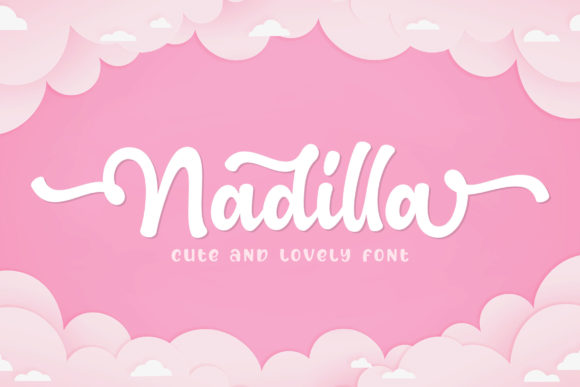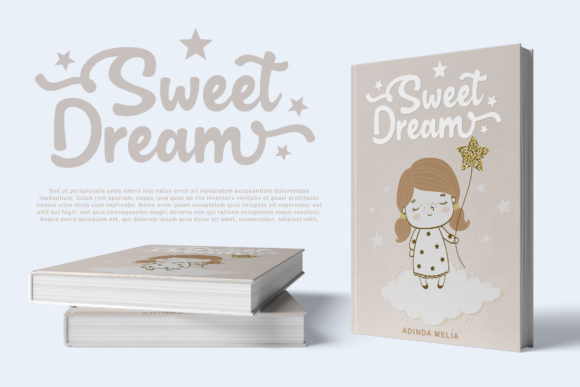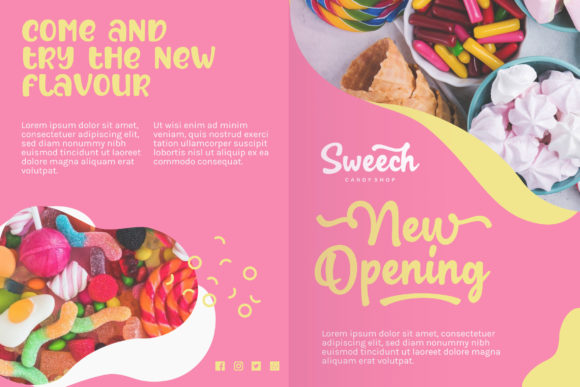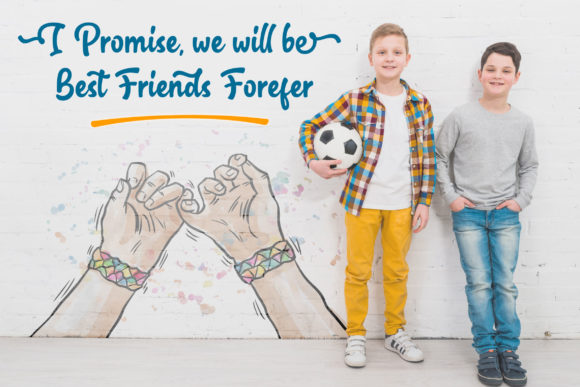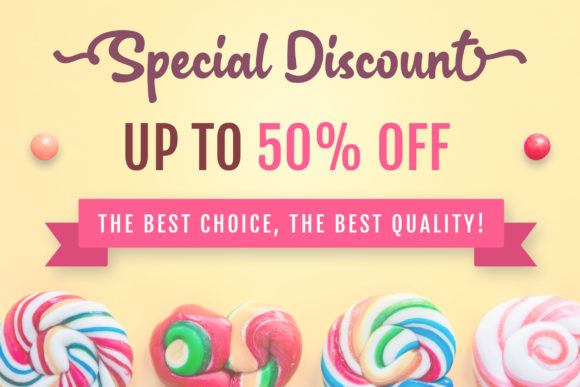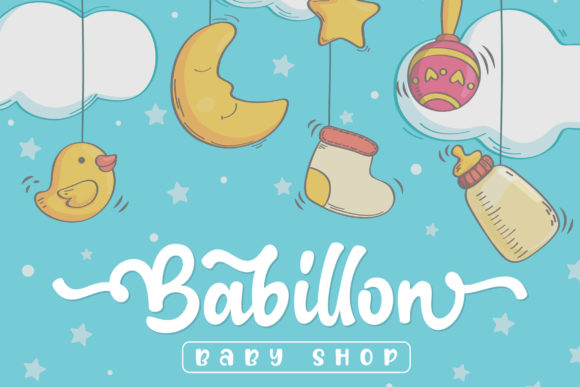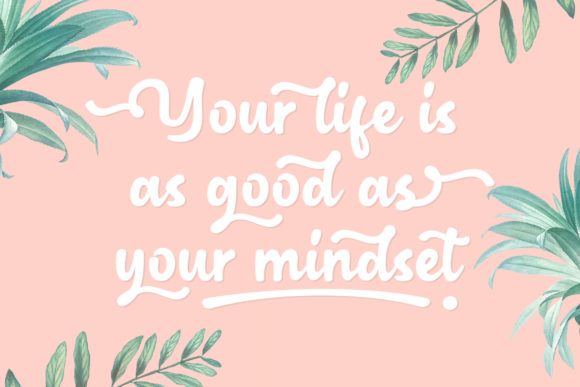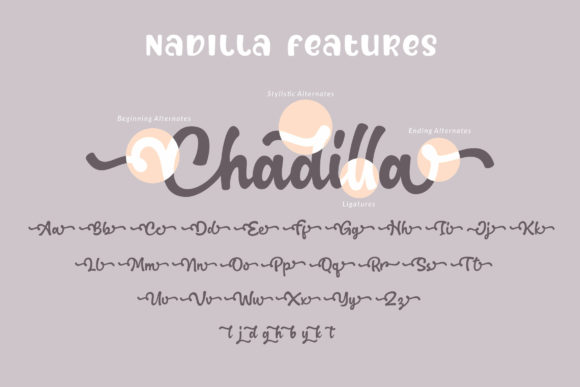
Nadilla Font
About Nadilla Font
Nadilla feels magical and lovely, but also elegant. Get inspired by its imaginative charm, and turn any design project into a true standout!